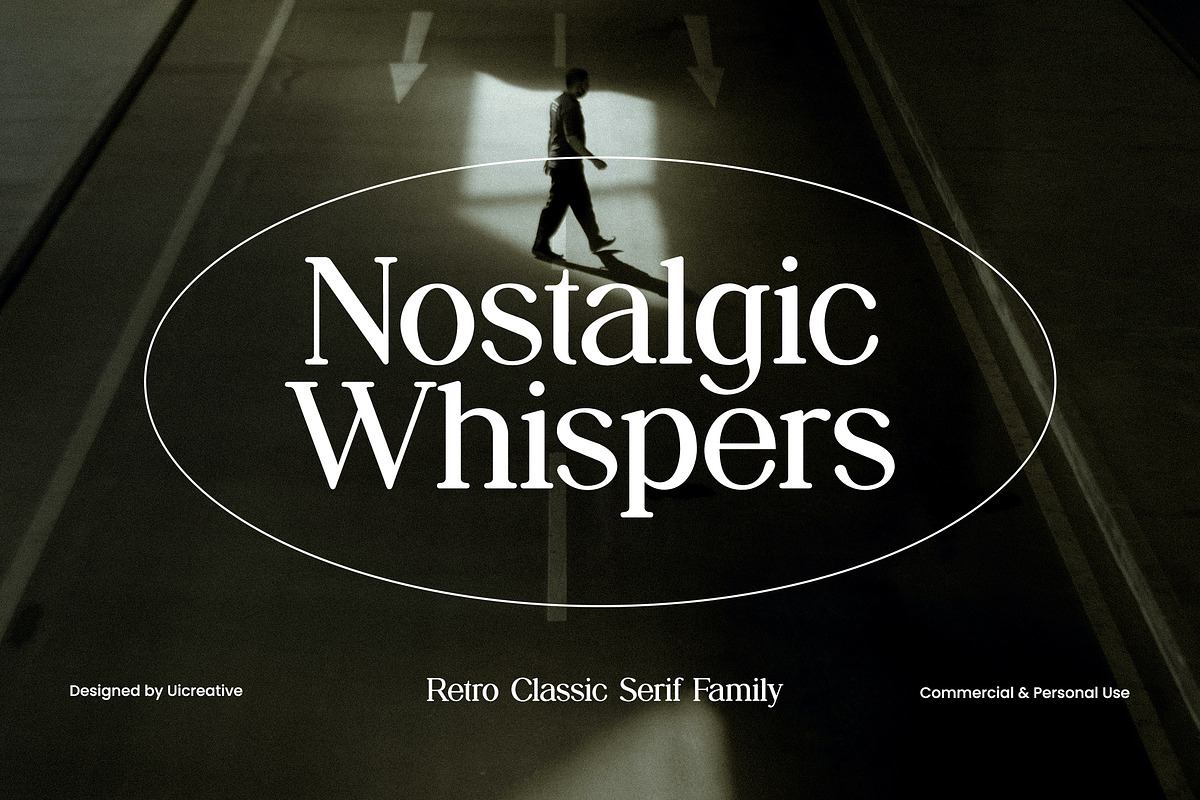
The Nostalgic Whispers Retro Serif Font Free Download is a stylish and vintage-inspired serif typeface that blends classic design with a modern twist. Perfect for retro branding, logos, posters, packaging, and any design project that calls for a nostalgic touch, this font adds charm and personality to your work.
With its distinct, bold serifs and playful letterforms, Nostalgic Whispers brings a touch of old-school elegance while maintaining readability and contemporary appeal. It includes uppercase and lowercase letters, numbers, punctuation, and multilingual support, offering great versatility for both print and digital designs.